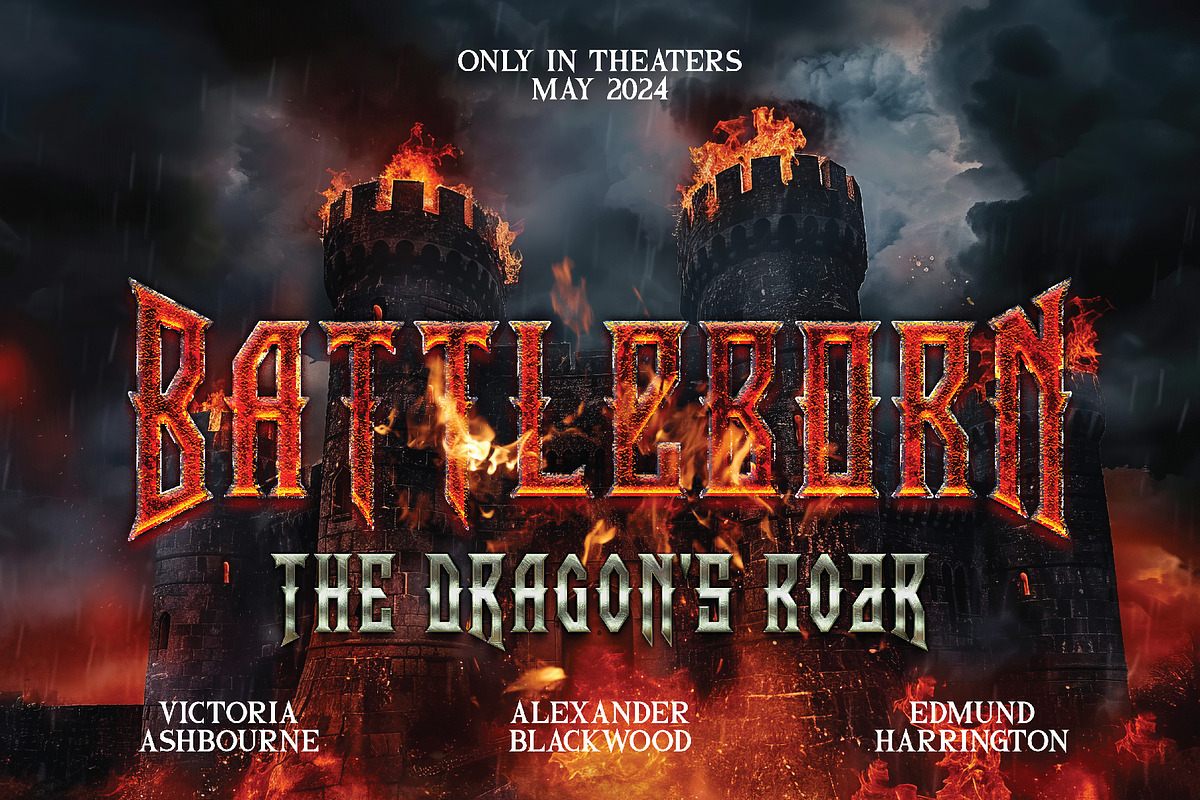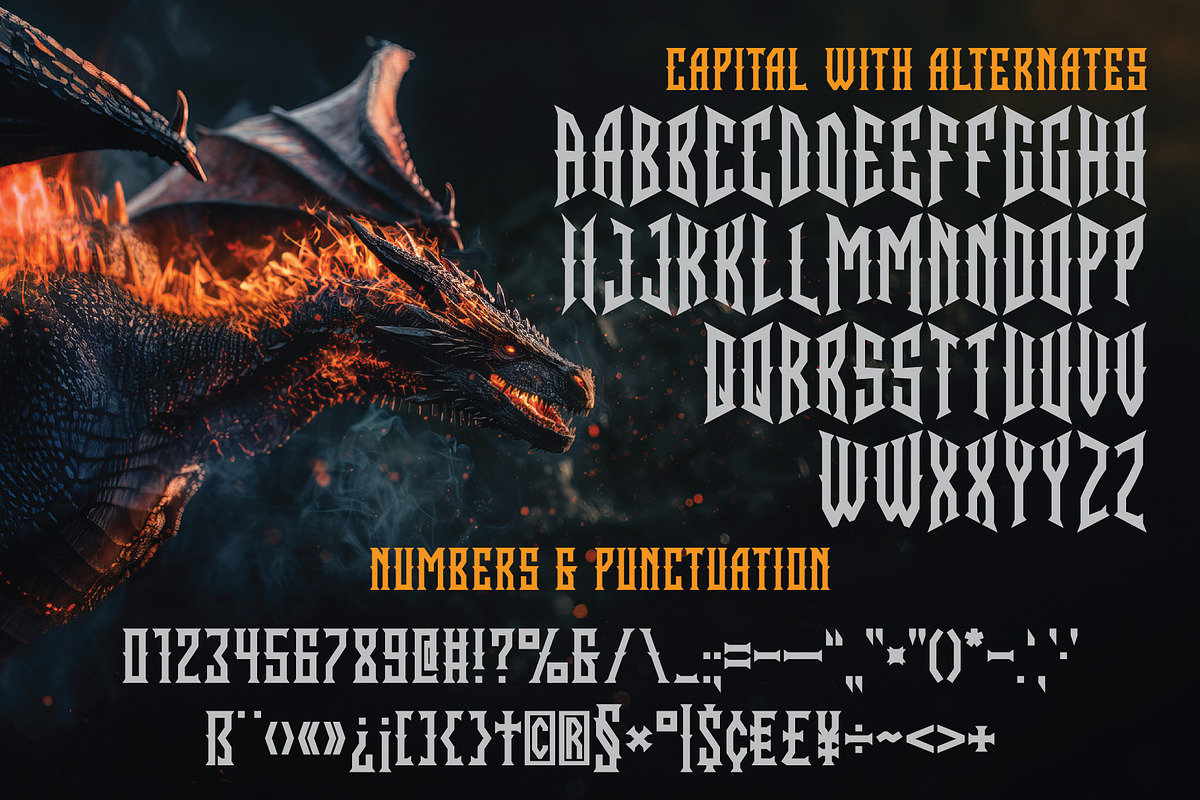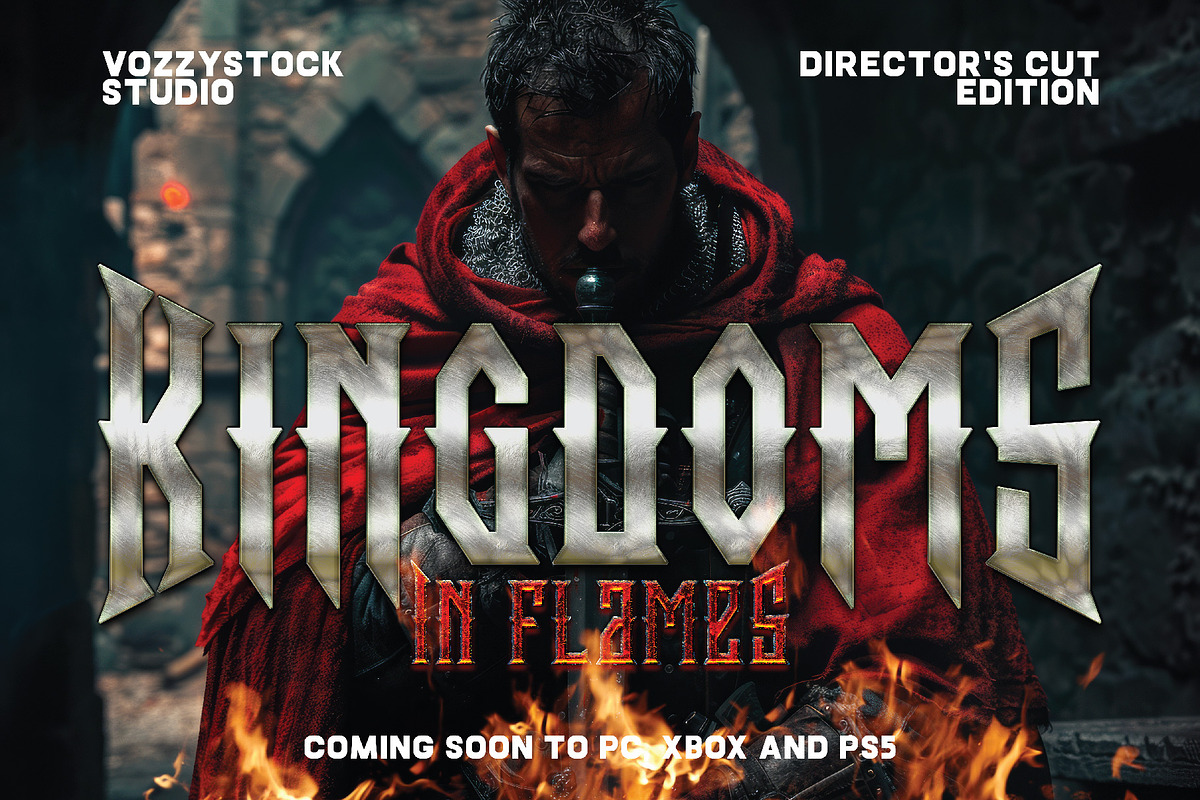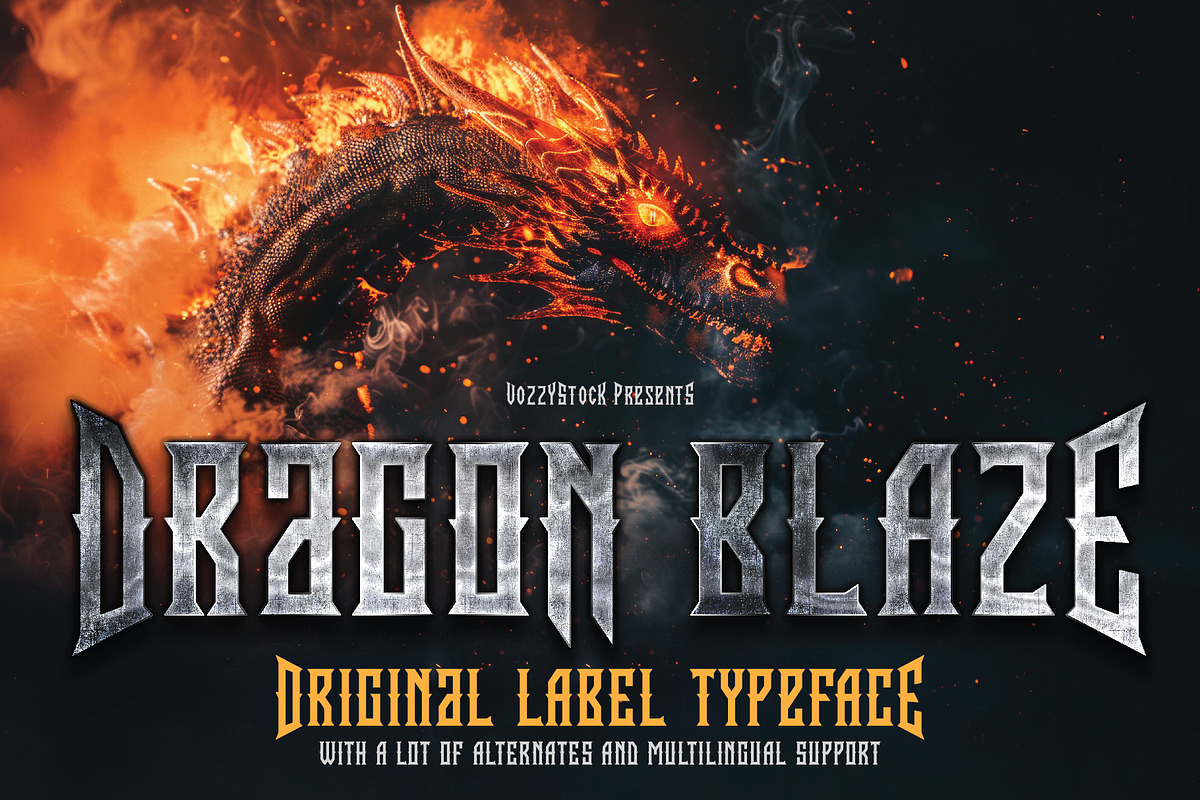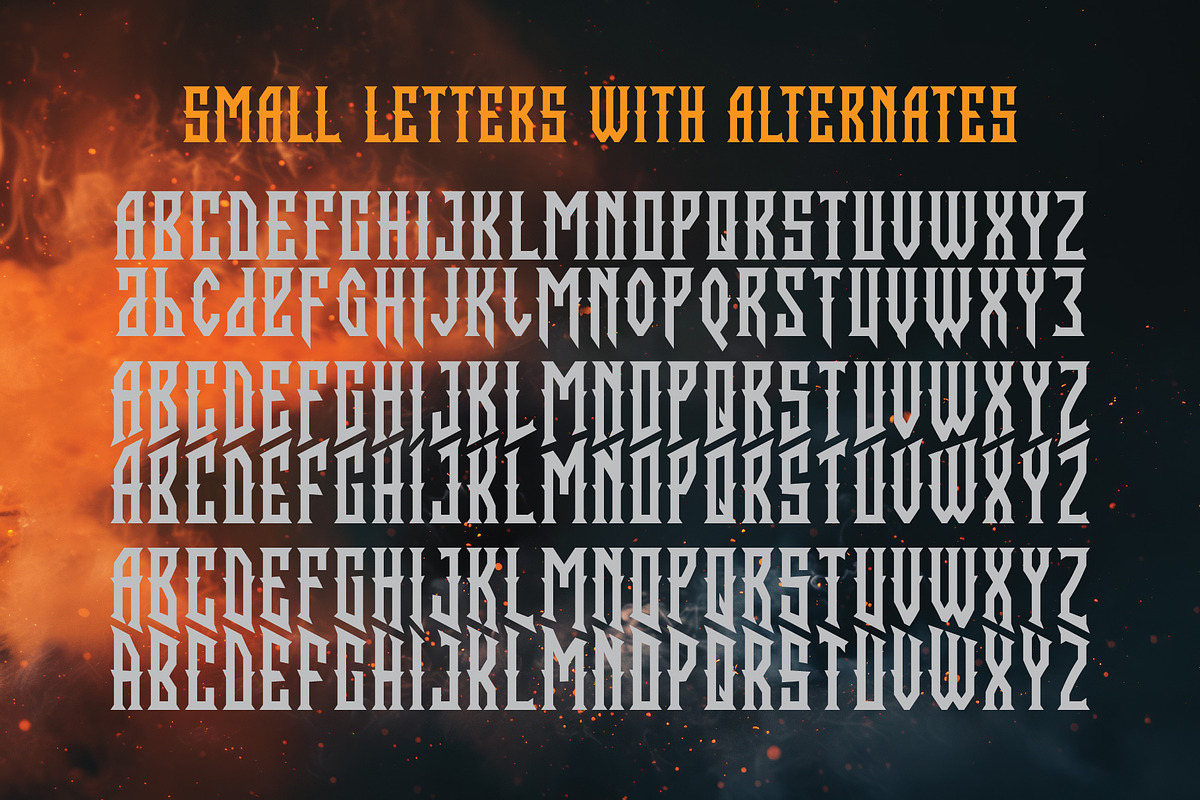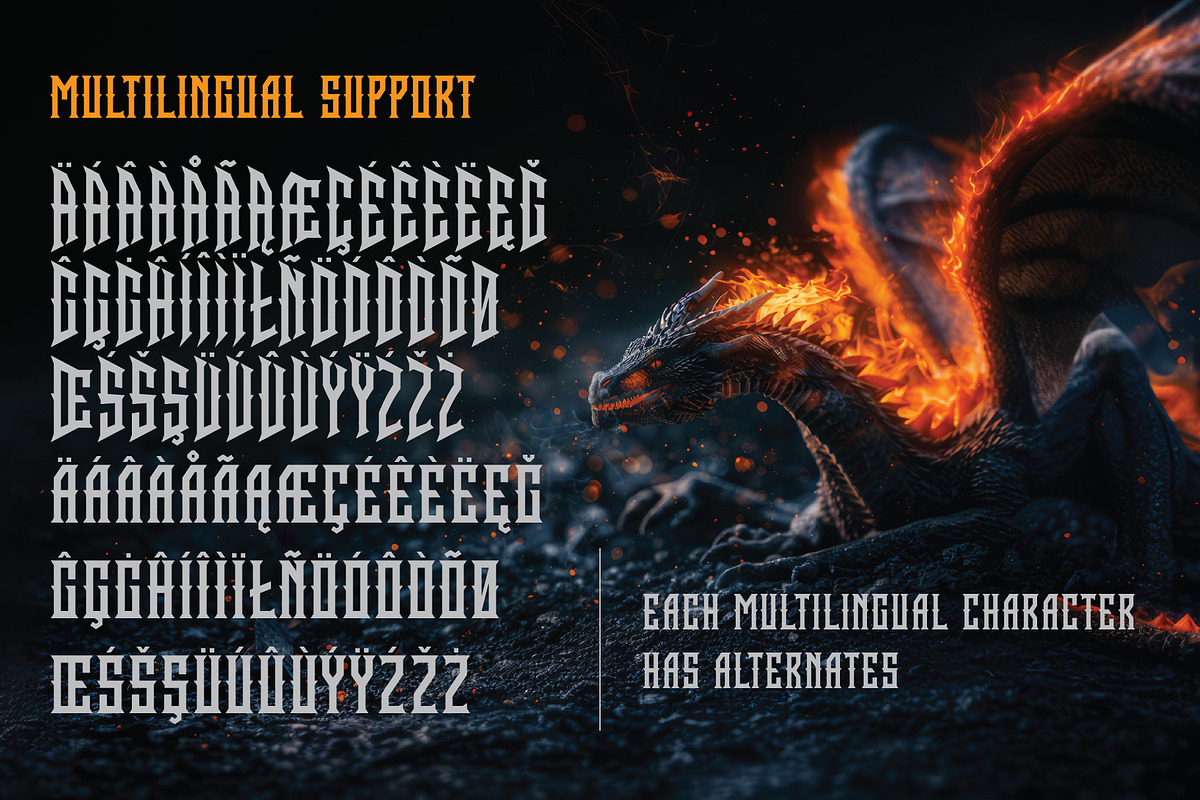
Dragon Blaze
Welcome to the realm of Dragon Blaze – the font that breathes the spirit of ancient legends onto your screens. Swift and mighty, this font is perfect for crafting eye-catching posters, epic banners, and striking logos, especially within the realm of computer games.
Dragon Blaze offers more than just a font – it's an entire arsenal of creative possibilities. With over 600 glyphs, including diverse alternative forms, each letter is infused with energy and passion.
Unique alternative forms for uppercase letters allow you to create emphasis at both the beginning and end of words, highlighting their significance and grandeur. And for lowercase letters, five alternative variations are available, unlocking endless opportunities for creativity.